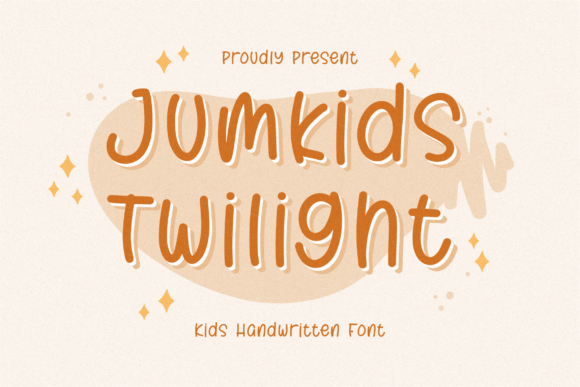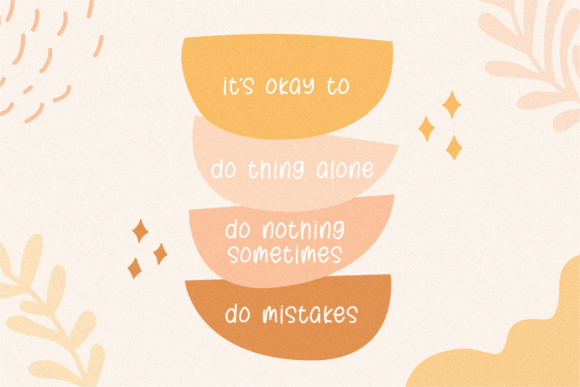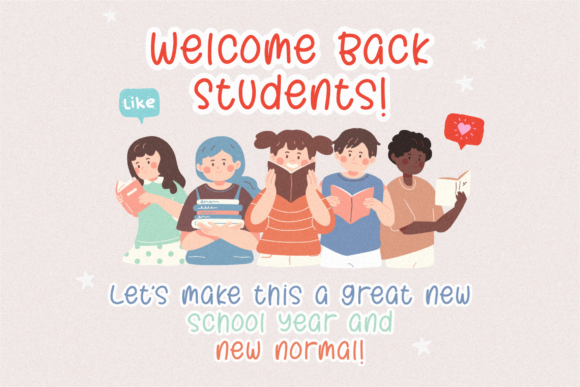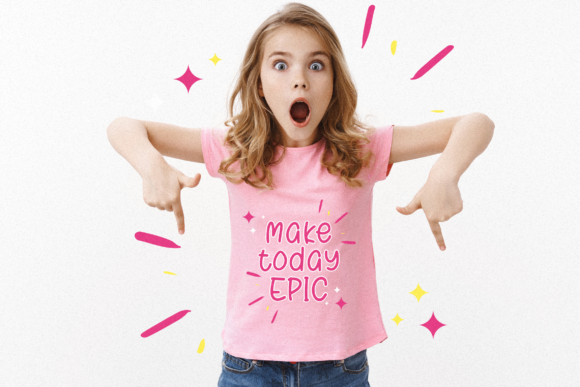
Jumkids Twilight Font
About Jumkids Twilight Font
Jumkids Twilight is a simple, quirky and adaptable handwritten font. Its informal style and casual vibe will make this font a go-to choice for each of the creations that require a relaxed touch.